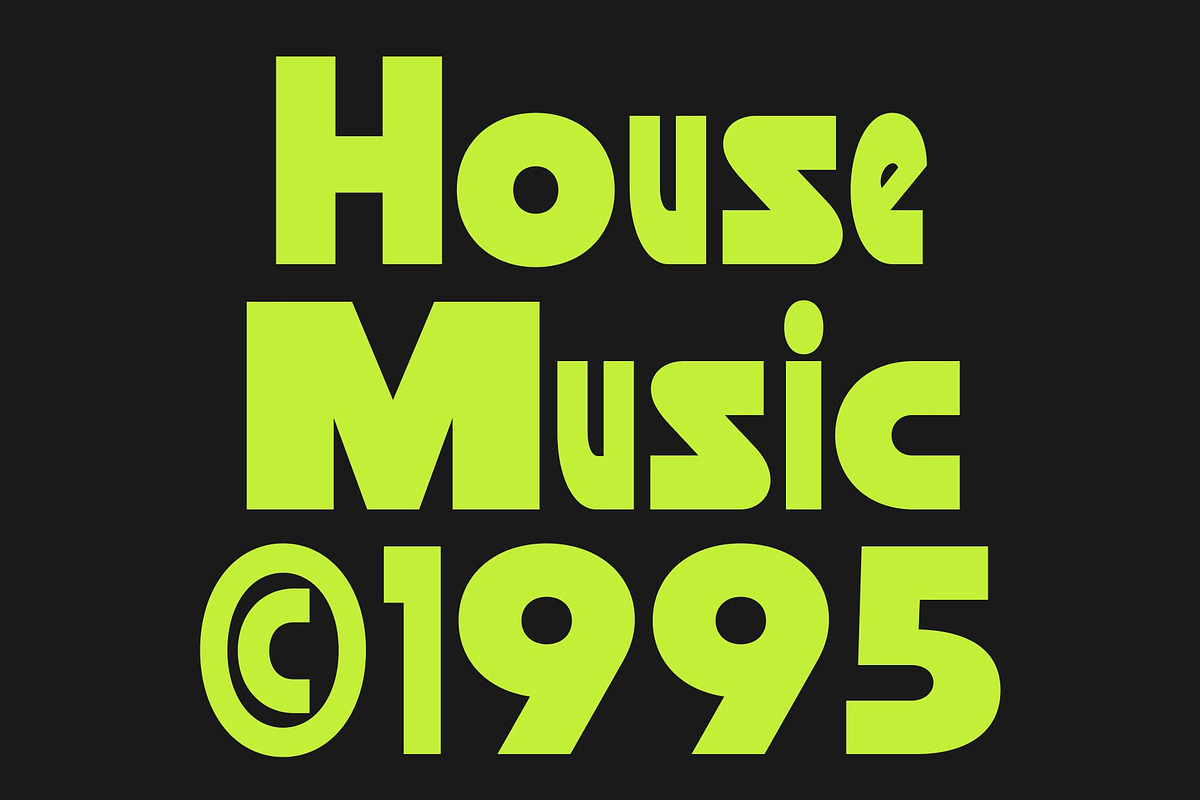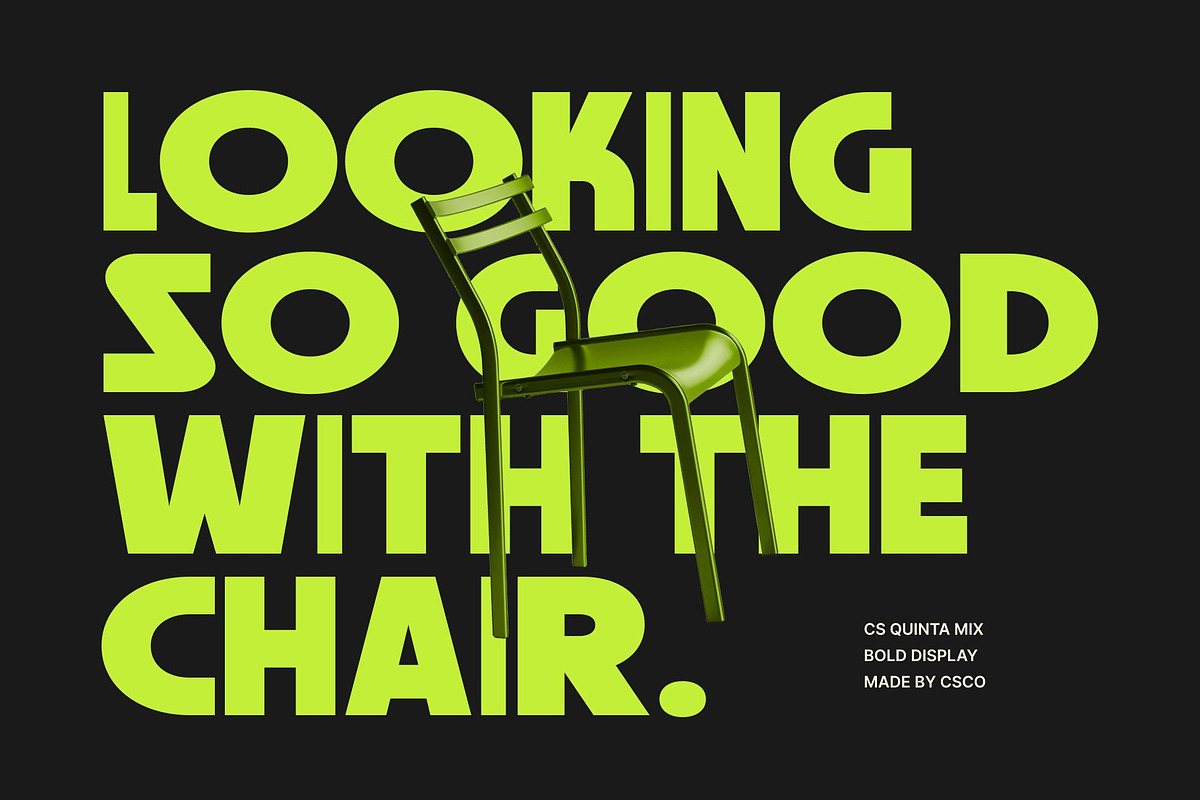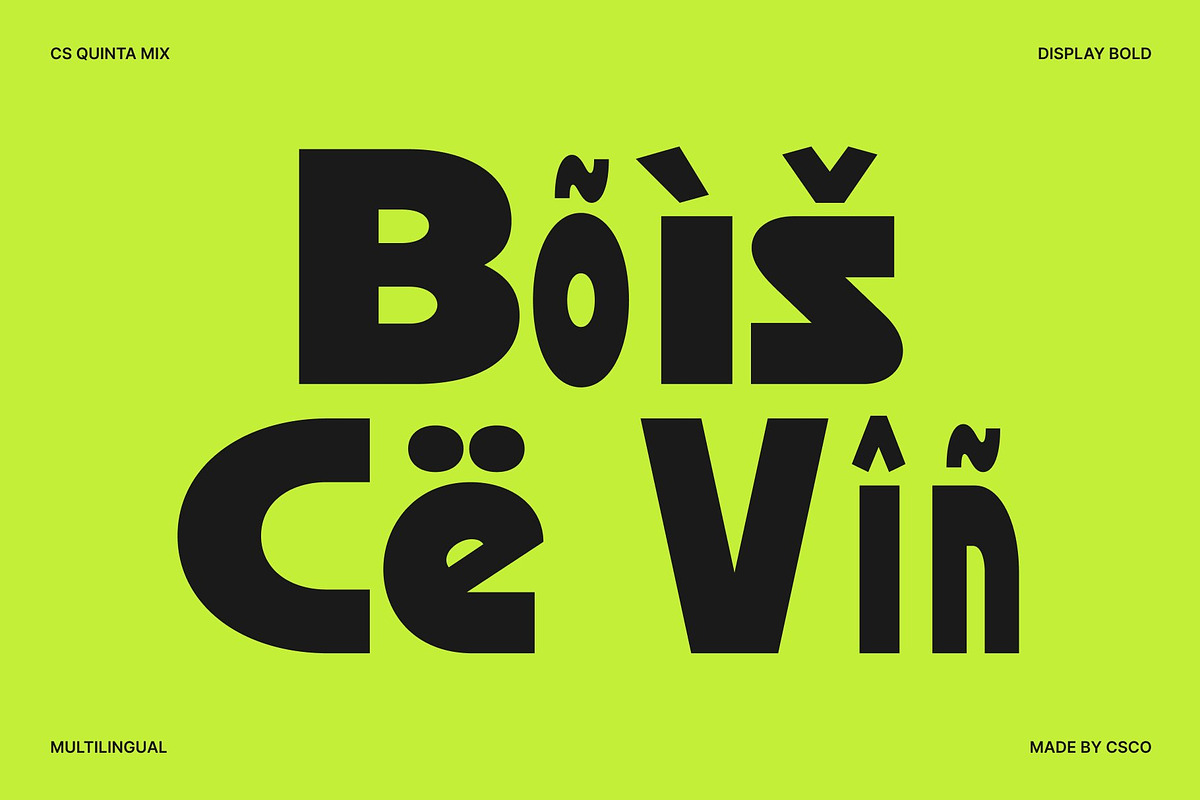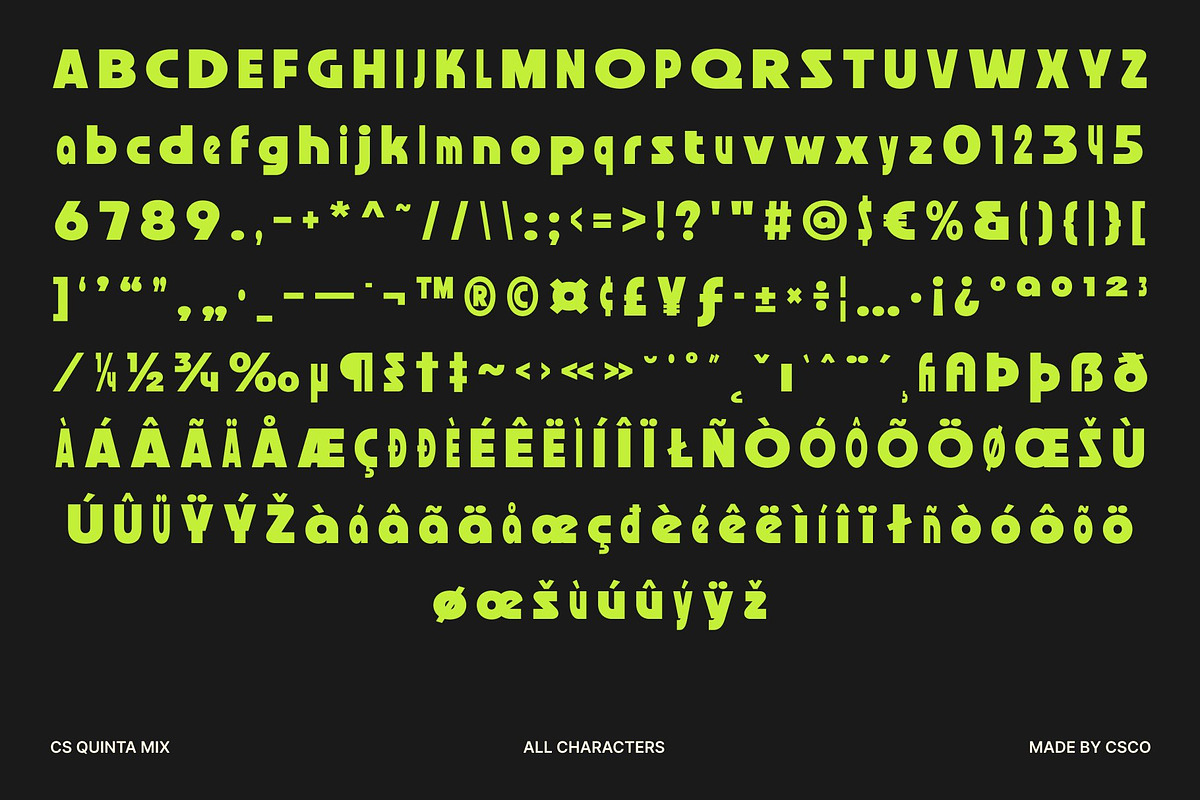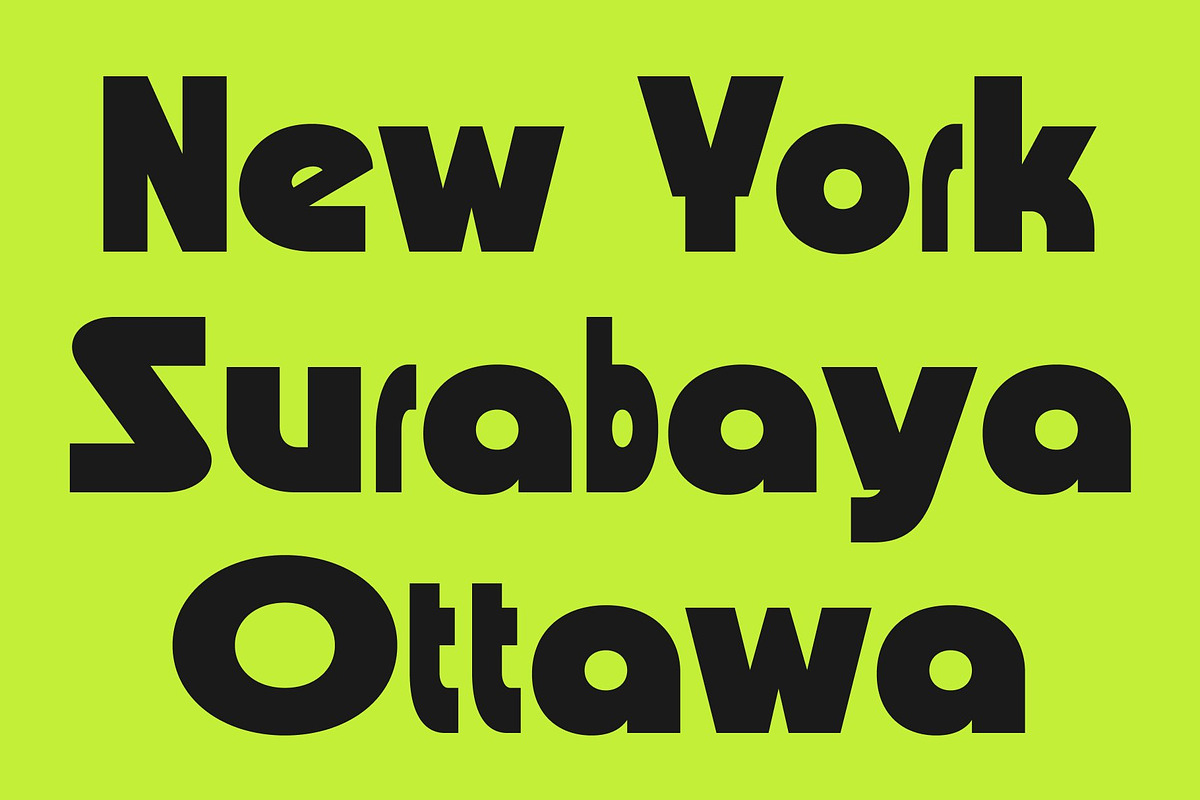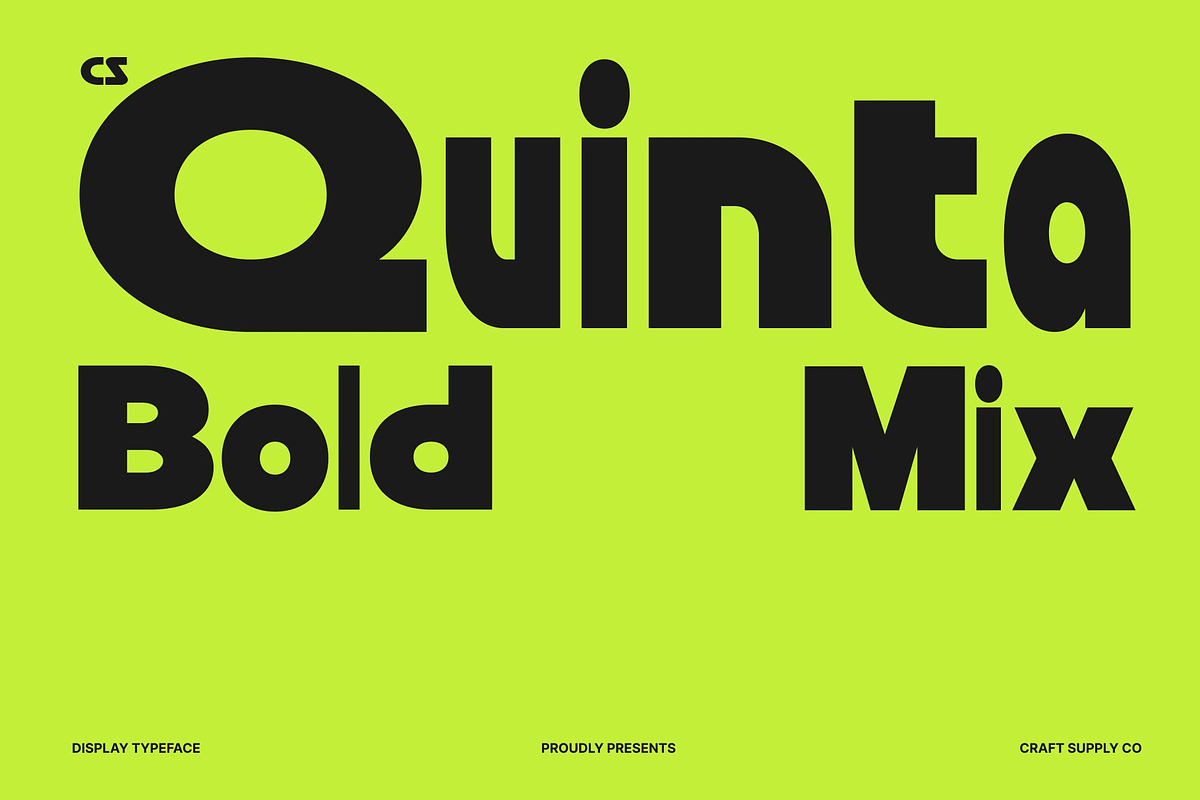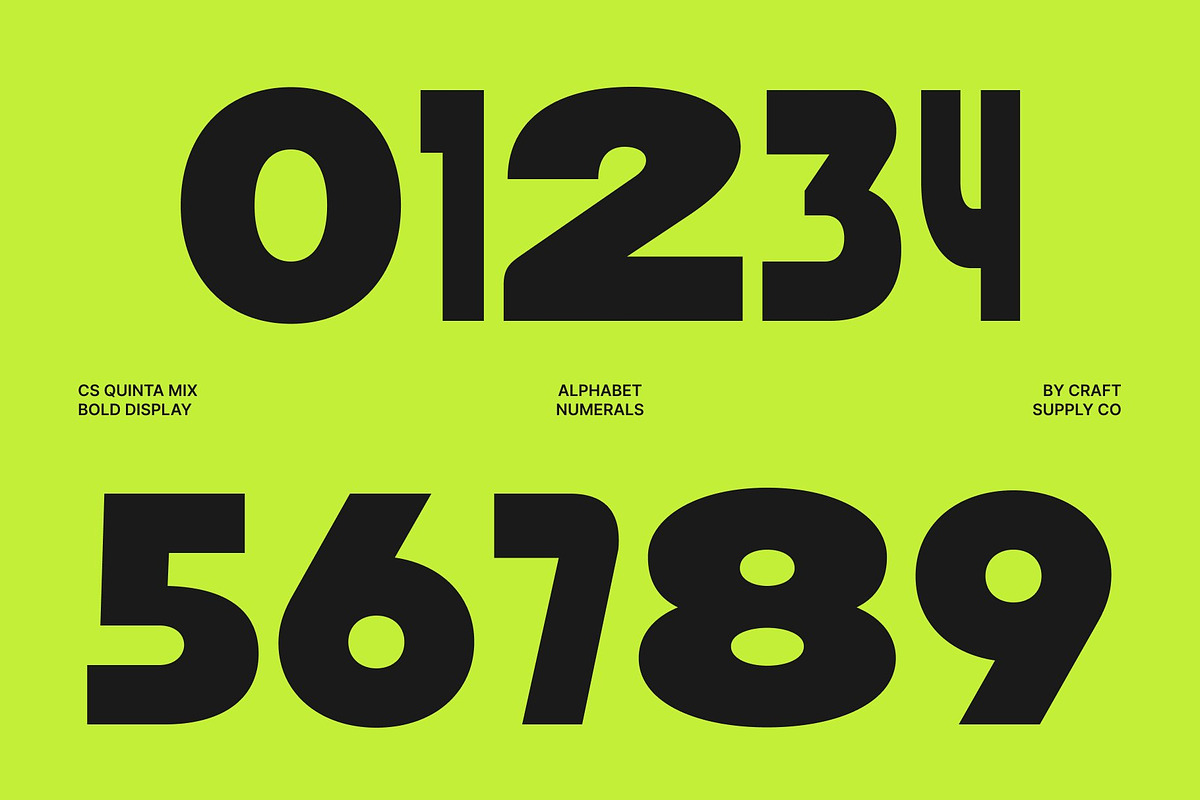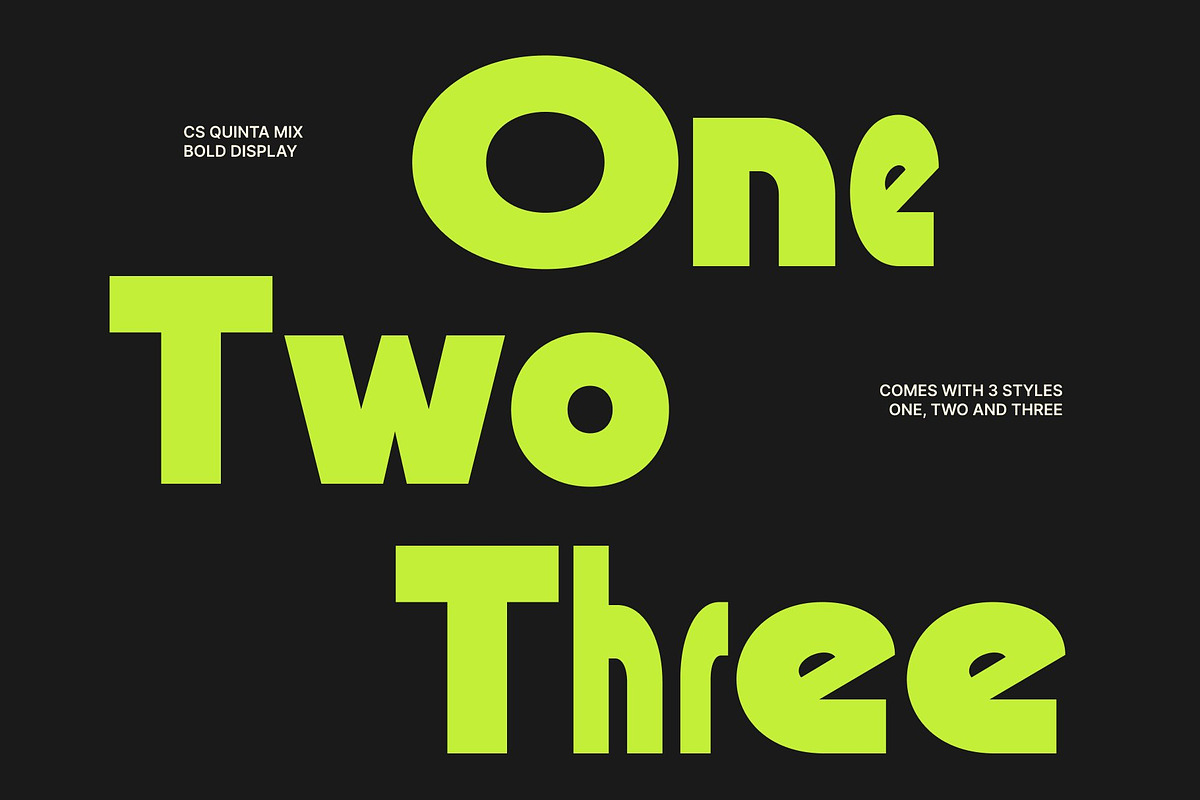
CS Quinta Mix
CS Quinta Mix – Bold Techno Sans Serif: Futuristic Energy with Funky Expression
Bold Techno Sans Serif with Mixed Style Character This is a modern bold sans serif font designed to combine futuristic precision with expressive creative energy. Built with clean geometric structures and techno-inspired forms, this typeface introduces a distinctive mixed-style concept that adds rhythm, contrast, and personality to every composition. It transforms bold typography into a dynamic visual statement that feels modern, stylish, and full of motion.
A Dynamic Blend of Bold and Regular Letterforms The defining strength of this font lies in its creative fusion of bold and regular styles. This mixed-weight approach creates visual hierarchy and energetic flow, allowing typography to feel lively and engaging without losing structure. The contrast between strong strokes and balanced forms gives the font a contemporary personality that feels both experimental and highly readable.
Techno Aesthetic with Funky Creative Flair This font embraces a futuristic aesthetic through geometric construction, sharp proportions, and modern simplicity. At the same time, subtle funky details add warmth and individuality, making the font feel more expressive and memorable.
Perfect for Branding, Posters, and High-Energy Visuals From logos and posters to branding and digital graphics, this font adapts effortlessly to projects that demand impact and originality. Its bold structure captures attention instantly, while its clean readability ensures strong communication across print and digital media. Whether you are building futuristic branding or energetic promotional visuals.
CS Quinta Mix One
CS Quinta Mix Two
CS Quinta Mix Three